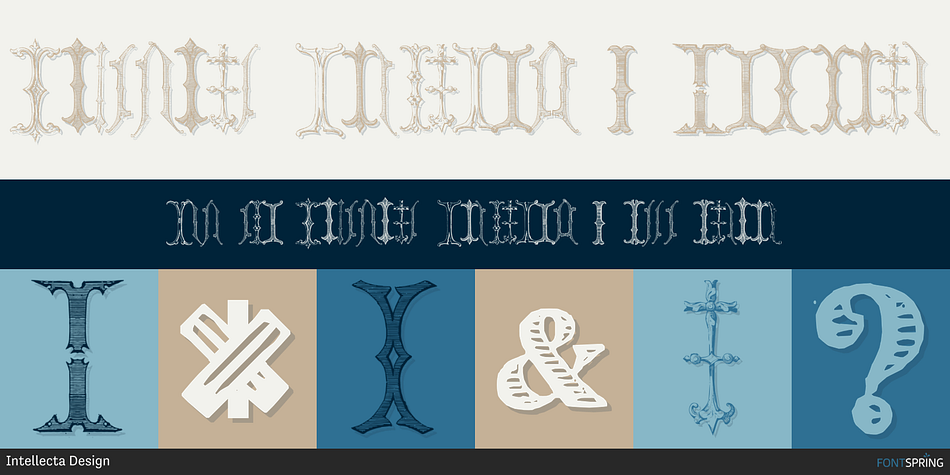
Victorian Alphabets I
Designed by Paulo W, Victorian Alphabets I is a historical and monograms font family published by Intellecta Design.
The “Victorian Alphabets I” font has just I’ designs, performing 52 different C’s to your use.
Victorian Alphabets is a increasing family of complete victorian style alphabets, researched and developed upon a comprehensive number of vintage books, magazines and catalogues from XIX century. A partnership font between Intellecta Design and Monocracy Types (Paulo W)